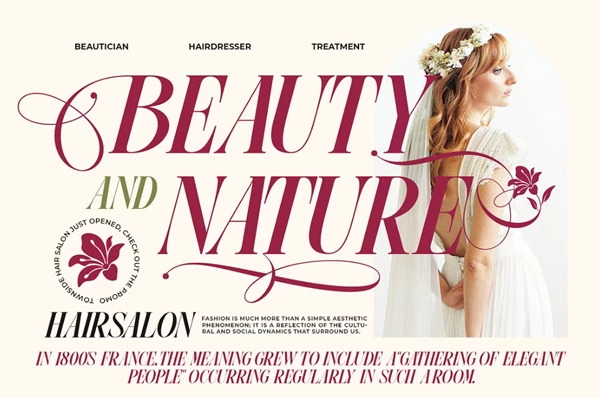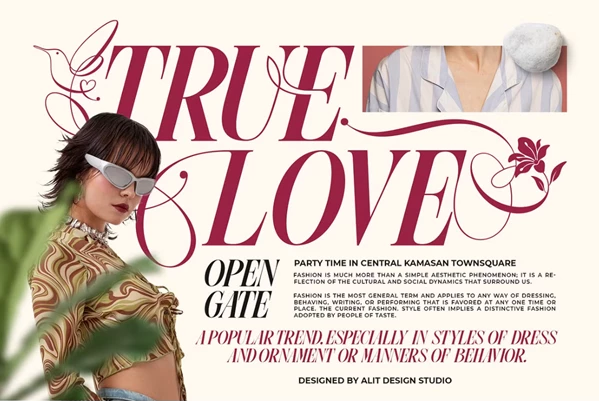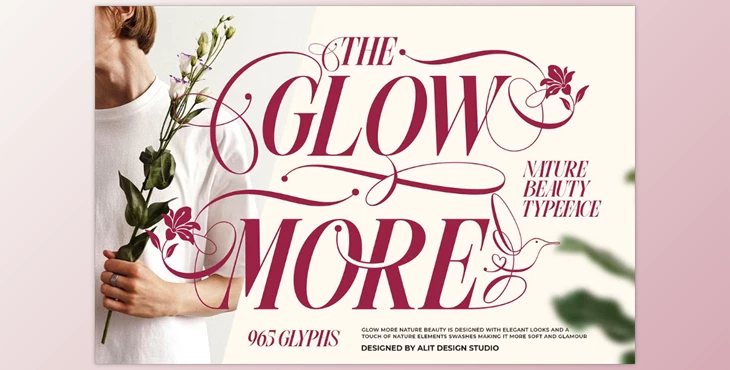
Glow More Typeface:
Glow More is an elegant, slanted serif typeface created with romantic, natural considerations in mind. Its beautiful design adds a sophisticated flair to any project with its natural and intricate qualities that create a slanted look.
However, Glow More is a unique font not just because of its overall beauty, but because of its small details. Not only can you edit the slant, but this font also features amazing floral and bird swashes, making it easy for project developers to make the design part of the natural world as well. It also works best in larger text, so it's perfect for headlines, logos, or invitations that can take on a bespoke, alluring look.
This 695 glyph font offers every alternative, ligature, and symbol needed to get creative. Use Glow More on wedding invitations, upscale boutiques, and magazines, or even simple quotes that need to stand out.
Some great features of Glow More Typeface:
- Elegant & Romantic Slanted Serif
- Beautifully crafted Floral & Bird Swashes
- An extensive collection of 695 Glyphs
- Perfect for branding, wedding stationery, logos, and high-end packaging